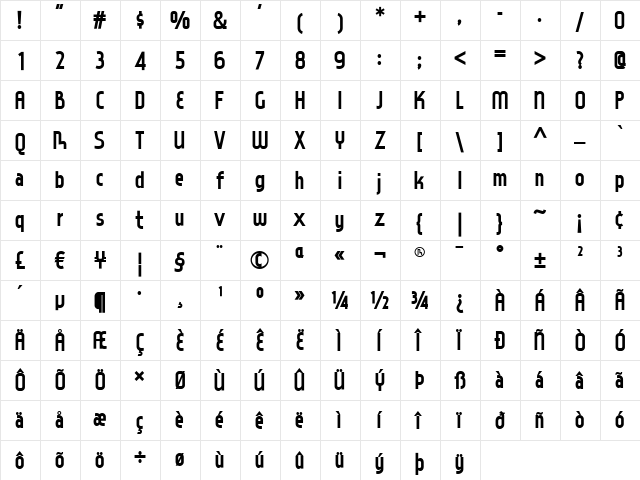
Dinky Rink NF Regular
Design Context for Dinky Rink NF Typeface
Dinky Rink NF is a composed and adaptable typeface that performs quietly and consistently across a wide range of design contexts.
Pro Tip: Use Dinky Rink NF in both headline and body roles to test its range before committing to a single application.